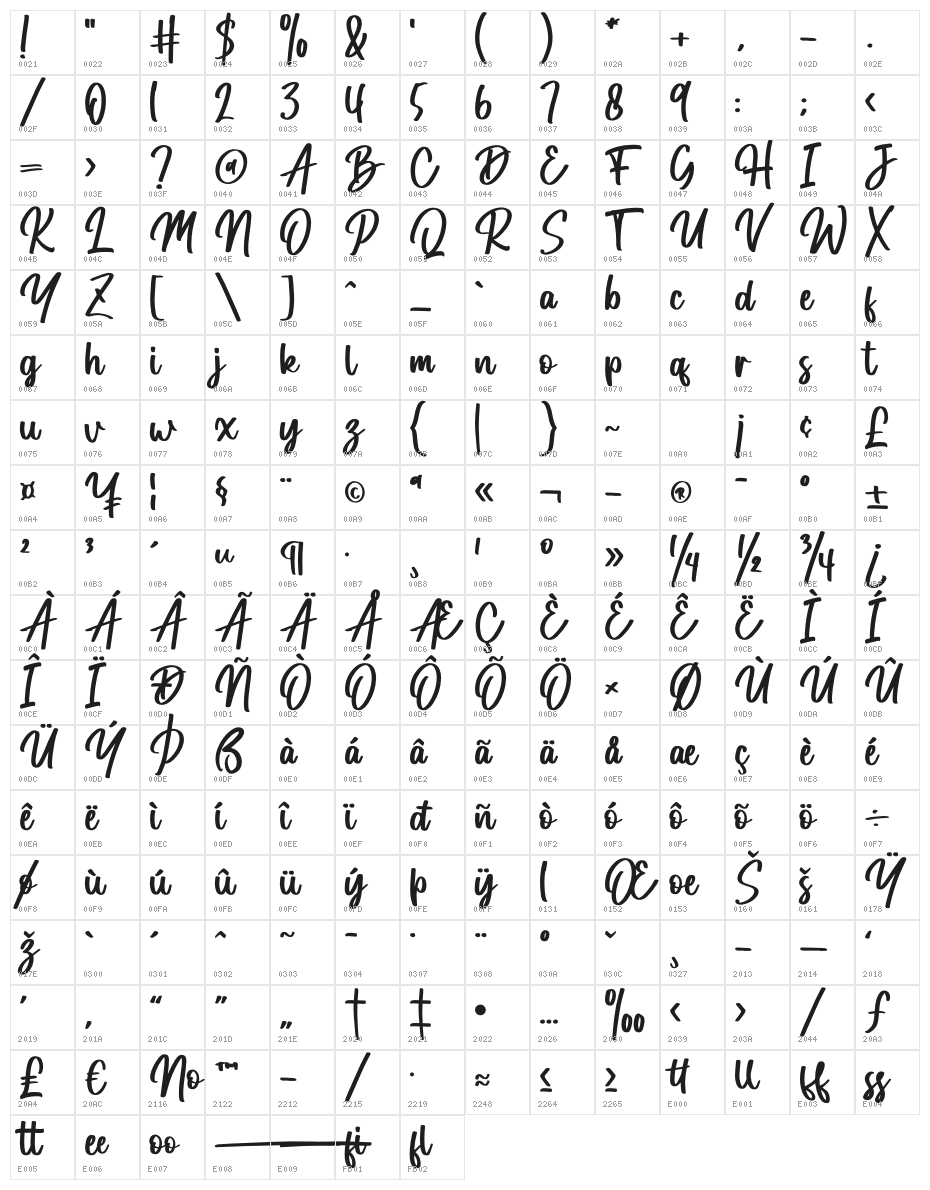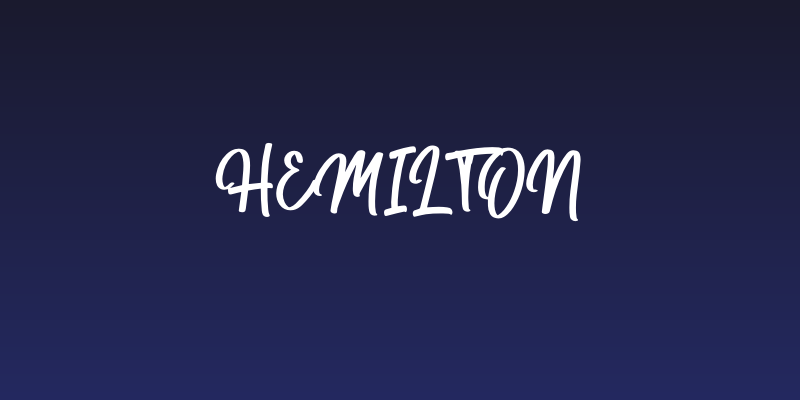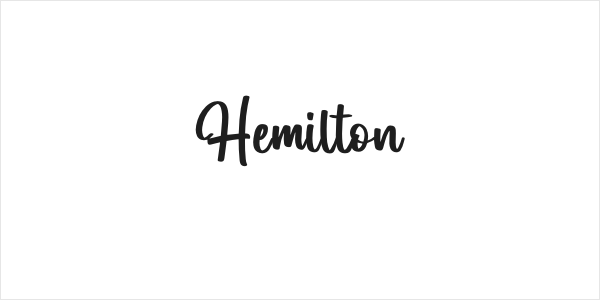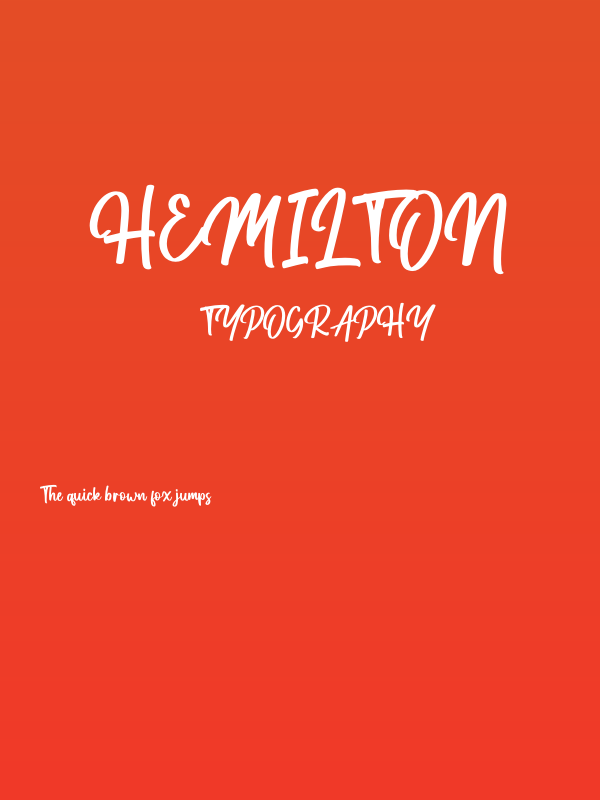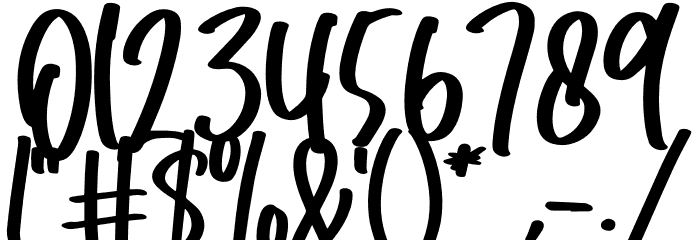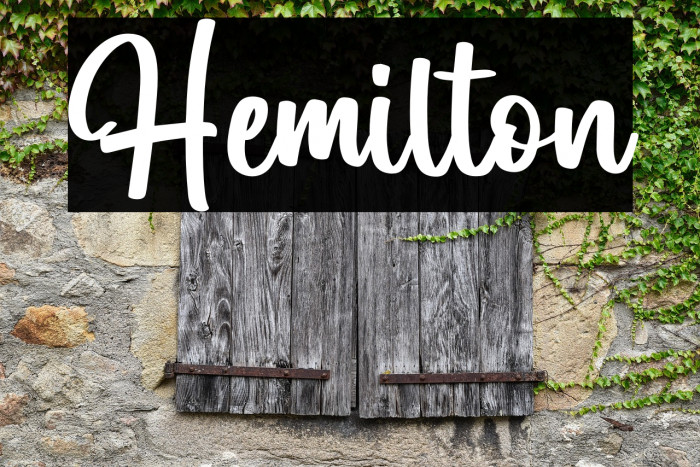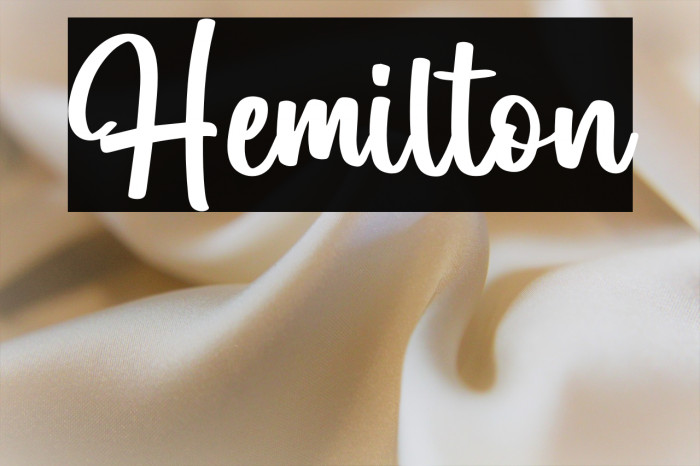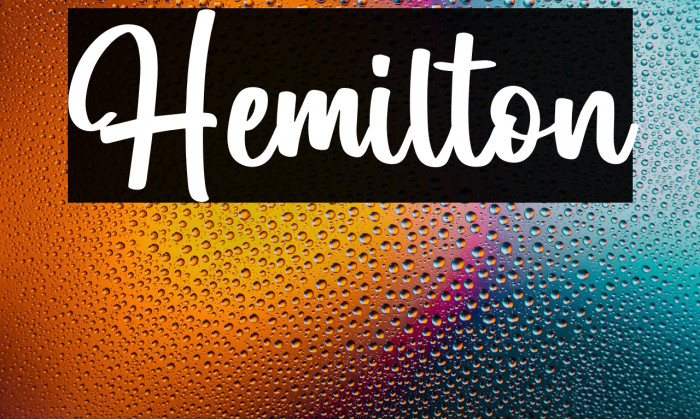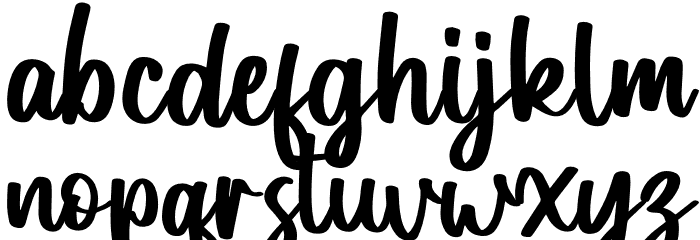
Hemilton Font
Hemilton Description
This font features a lively and dynamic handwritten style, characterized by its fluid and connected letterforms. The uppercase letters exhibit a bold and confident appearance, with a slight slant that adds to the casual and informal feel. The lowercase letters maintain a consistent flow, enhancing readability while preserving the playful nature of the design. Numbers and special characters are crafted with the same energetic strokes, ensuring a cohesive look across all elements. The overall impression is one of spontaneity and creativity, making it suitable for projects that require a personal touch.
| Proposed Projects | Ideal for greeting cards, invitations, branding, and social media graphics where a personal and creative touch is desired. |